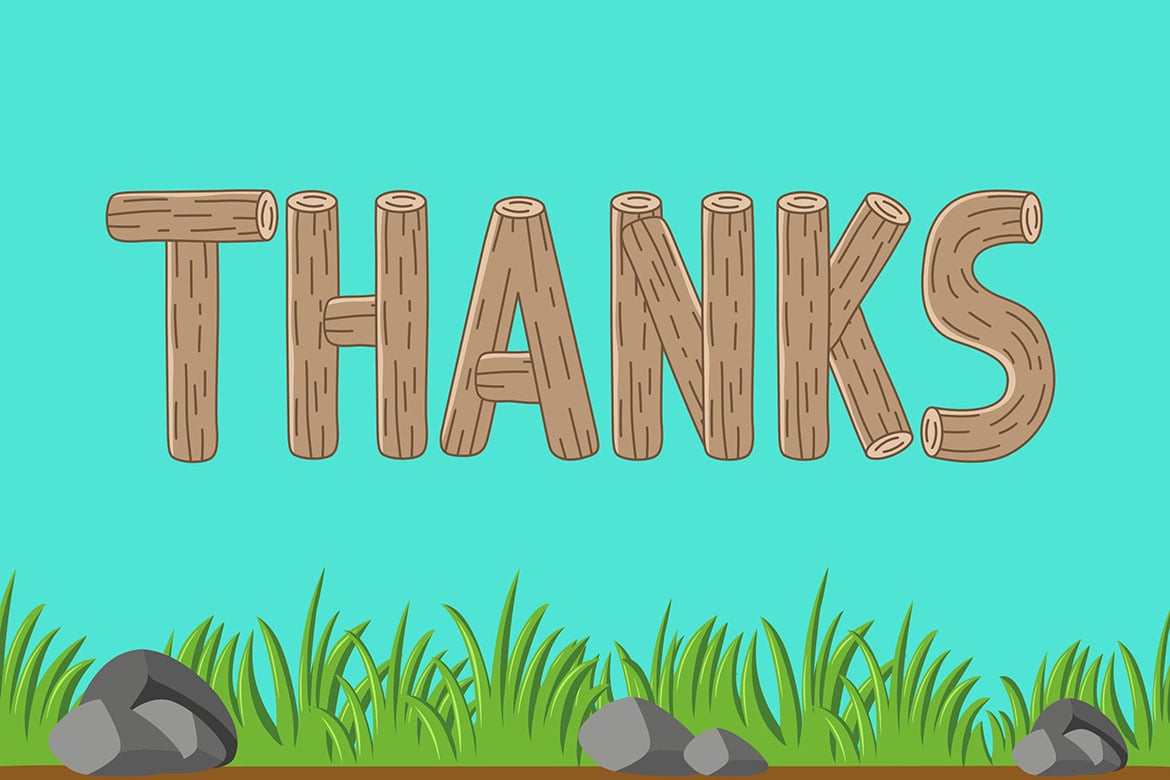
Wooden Logs – SVG Color Font
Wooden Logs a SVG Color Font Inspiring from Playful typography. This font is perfect for a design that makes it more attractive and playful. made with a very good level of aesthetics making this font suitable for book cover, poster, packging, merchandise, logotype and much more.